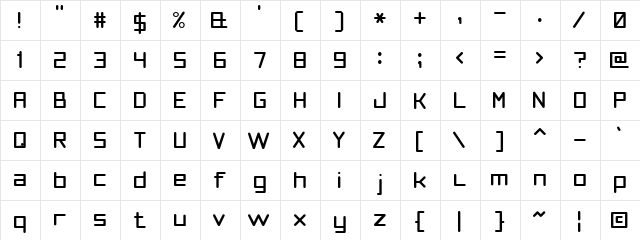
Smooth Line 7 Regular
| Foundry | Style-7 |
| Designer | Sizenko Alexander |
Design Context for Smooth Line 7 Typeface
Smooth Line 7 takes a measured approach to typography — its balanced proportions and neutral character make it a reliable workhorse for both digital and print work.